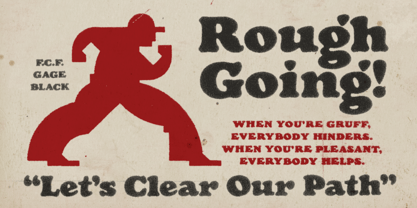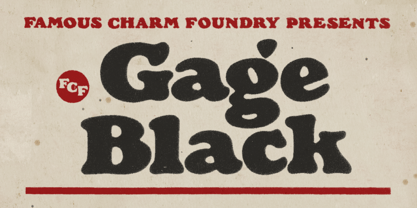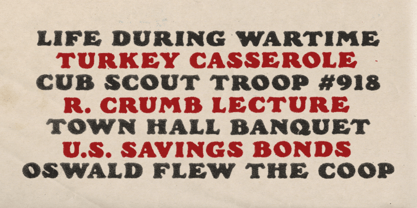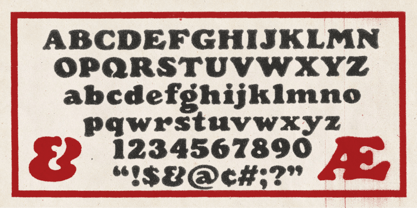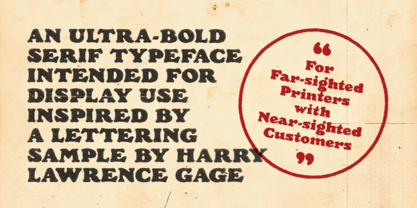
FCF Gage
by Famous Charm
The FCF Gage Font Family was designed by Thomas Bradley and published by Famous Charm. FCF Gage contains 1 styles. More about this family
Famous Charm Foundry is thrilled to unveil the newest addition to our type library: FCF Gage Black. This typeface is inspired by a lettering sample created by renowned fine artist, designer and typographer Harry Lawrence Gage. Carefully crafted to honor the personality of his original work featured in Thomas Woods Stevens’ 1916 book Lettering, FCF Gage Black has been thoughtfully smoothed, simplified and redrawn to meet modern typesetting standards. We've also expanded on Gage's vision by adding new glyphs and punctuation, bringing fresh versatility to this timeless design.
Designers: Thomas Bradley
Foundry: Famous Charm